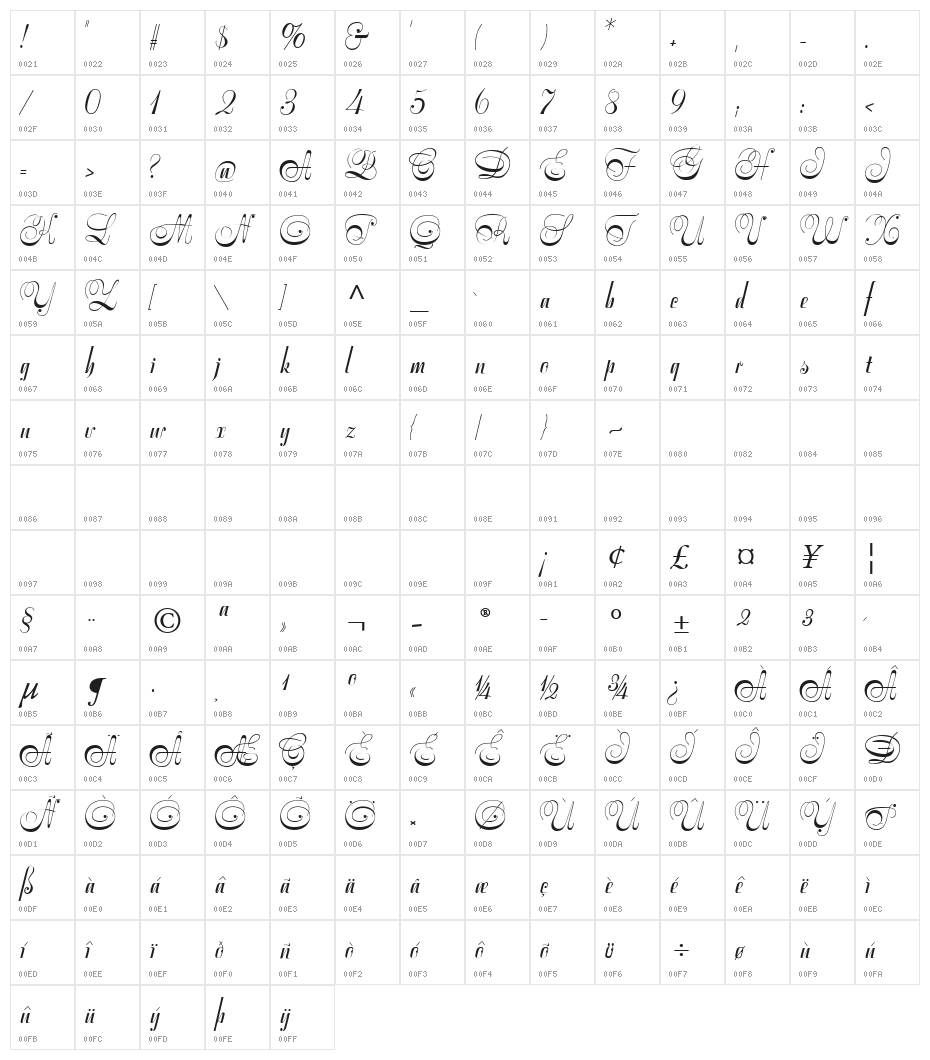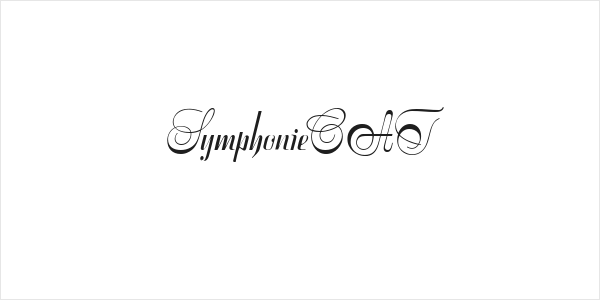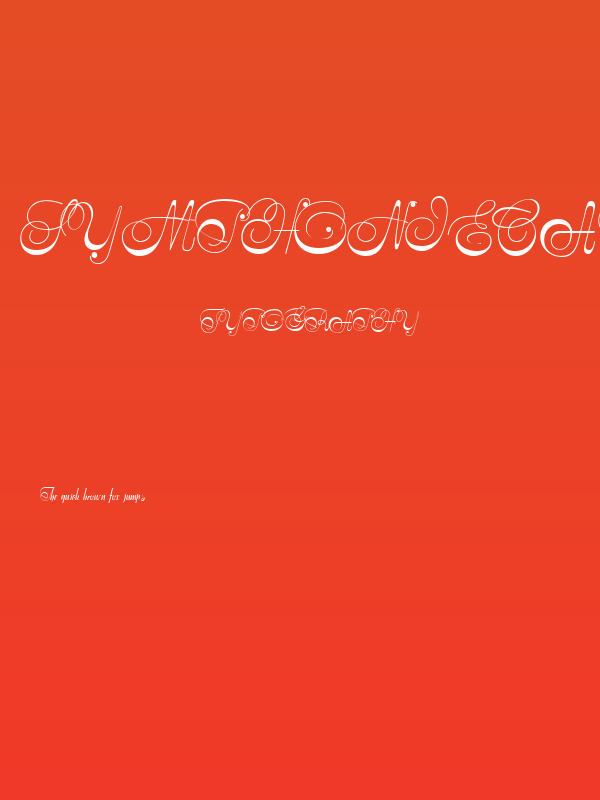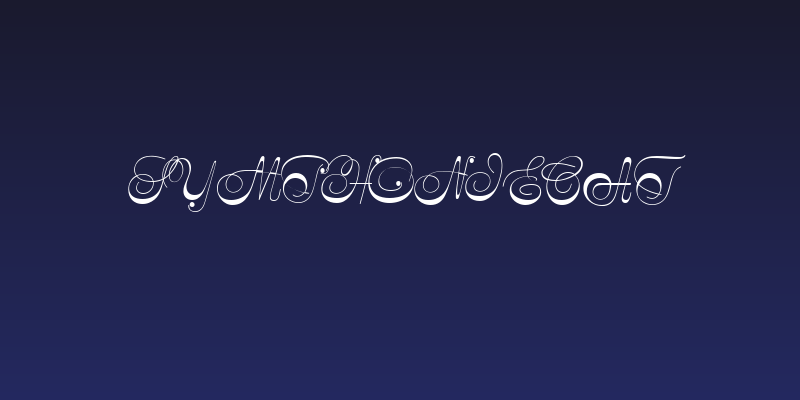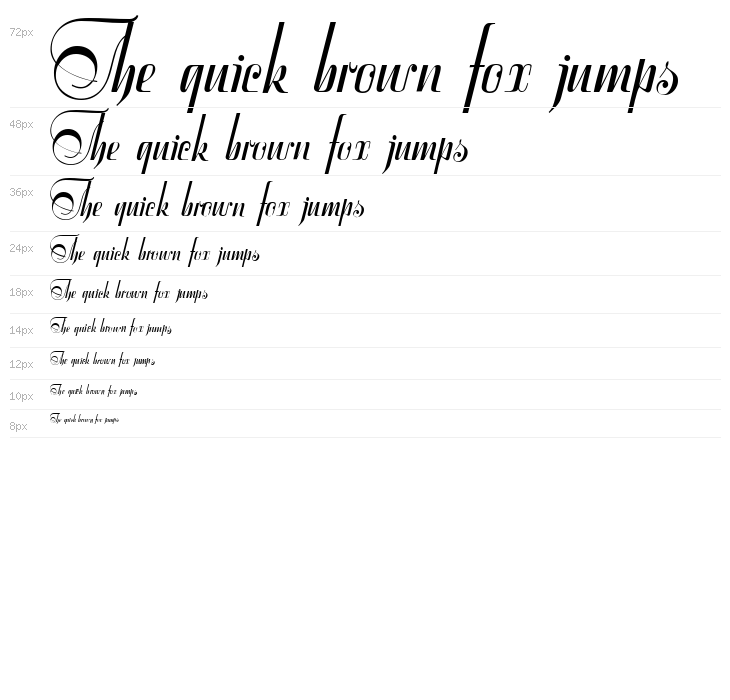
SymphonieCAT Font
SymphonieCAT Description
This font features an elegant and sophisticated design with a strong emphasis on decorative elements. The uppercase letters are adorned with intricate loops and swirls, creating a sense of movement and fluidity. The lowercase letters maintain a more traditional script style, offering a nice contrast to the ornate capitals. The numerals are stylishly curved, complementing the overall aesthetic. Special characters are designed with the same attention to detail, ensuring consistency throughout. This font is perfect for projects that require a touch of elegance and artistic flair.
Use CaseLogos, Invitations, Posters
Proposed ProjectsIdeal for wedding invitations, luxury branding, elegant packaging, and artistic posters.